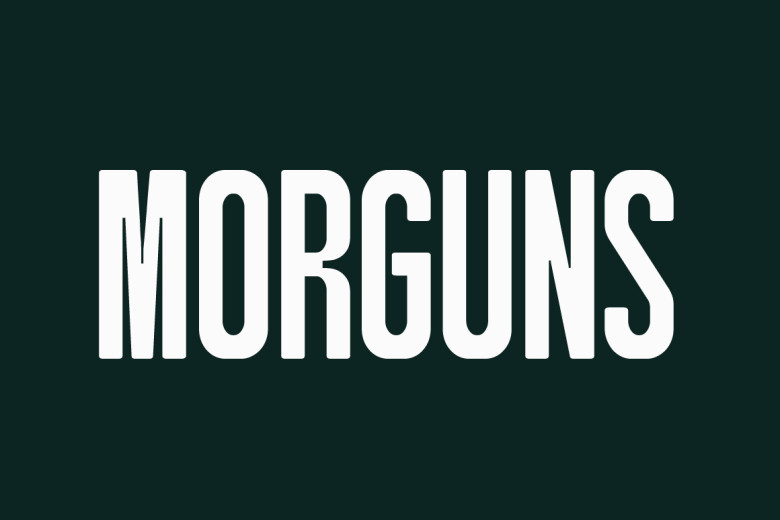
Morguns Font
Morguns is a font of bold face writing, which has a different typesetting character from the general bold face script that is now on the market. Morguns has a strong yet gentle character, with an air of graceful and fresh style; and supported by four type families provided in different fonts. Morguns can meet all your needs at present whenever you need something brilliant to design.
The font is very effective for use in logos, posters, social media titles, magazine headings, clothes labels, large print formats – anywhere that it puts space between you the creator and an ordinary reader. Just imagine your design taste inspired by today’s popular styles and make it come true with Morguns.
Morguns Sans Serif Font